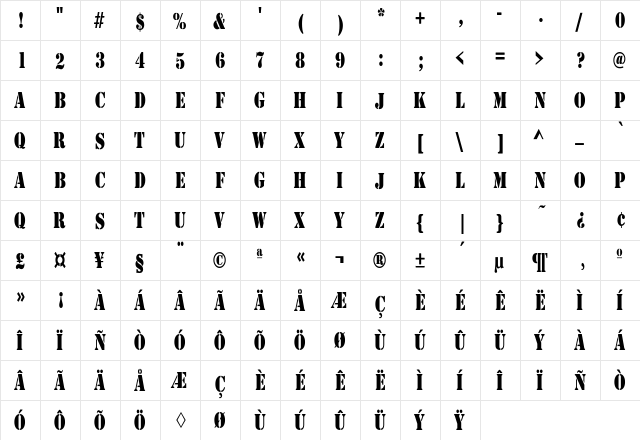
Army Condensed Regular
Design Context for Army Condensed Typeface
Army Condensed draws on military and industrial lettering traditions, with forms that communicate strength and precision. Its narrow stance lets it pack a punch even in space-constrained designs.
Designed for tactical branding, military-inspired apparel, action game UI, and utility-focused signage.
Pro Tip: Use Army Condensed at medium-to-large sizes where its utilitarian structure can be appreciated — the character detail gets lost at small sizes.